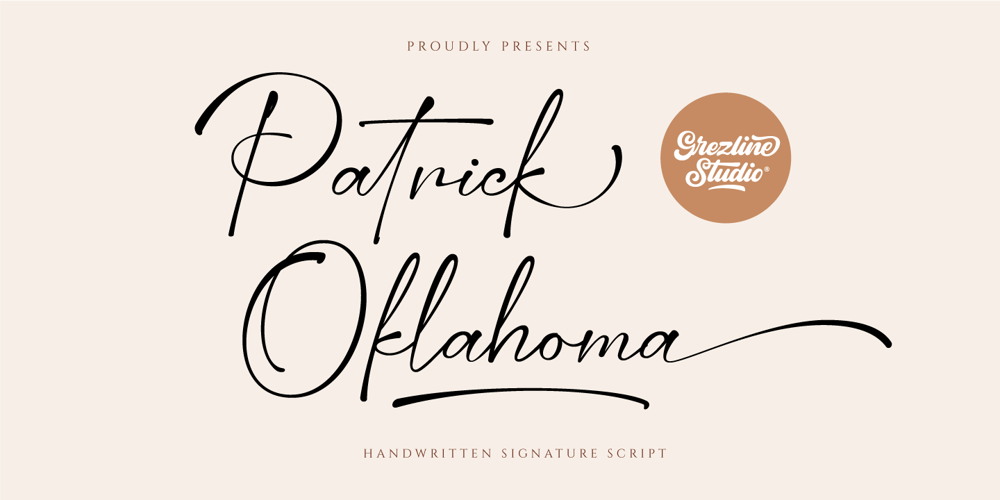
Patrick Oklahoma Font Family was designed by Akhmad Reza Fauzi and published by Grezline Studio. Patrick Oklahoma contains 1 styles and family package options. Patrick Oklahoma is a handwritten signature script font. This font has a luxurious and stylish feels that is perfect for fashion-related design. Patrick Oklahoma font is also usable in a wide range of works such as logos, covers, posters, quotes, product packaging, merchandise, social media and much more!Feature :- Alternate Glyphs- Multilingual Language- Works on PC & Mac- Simple installations- Accessible in the Adobe Illustrator, Adobe Photoshop, Adobe InDesign, even works on Microsoft Word.Thank you!Grezline Studio – Akhmad Reza Fauzi